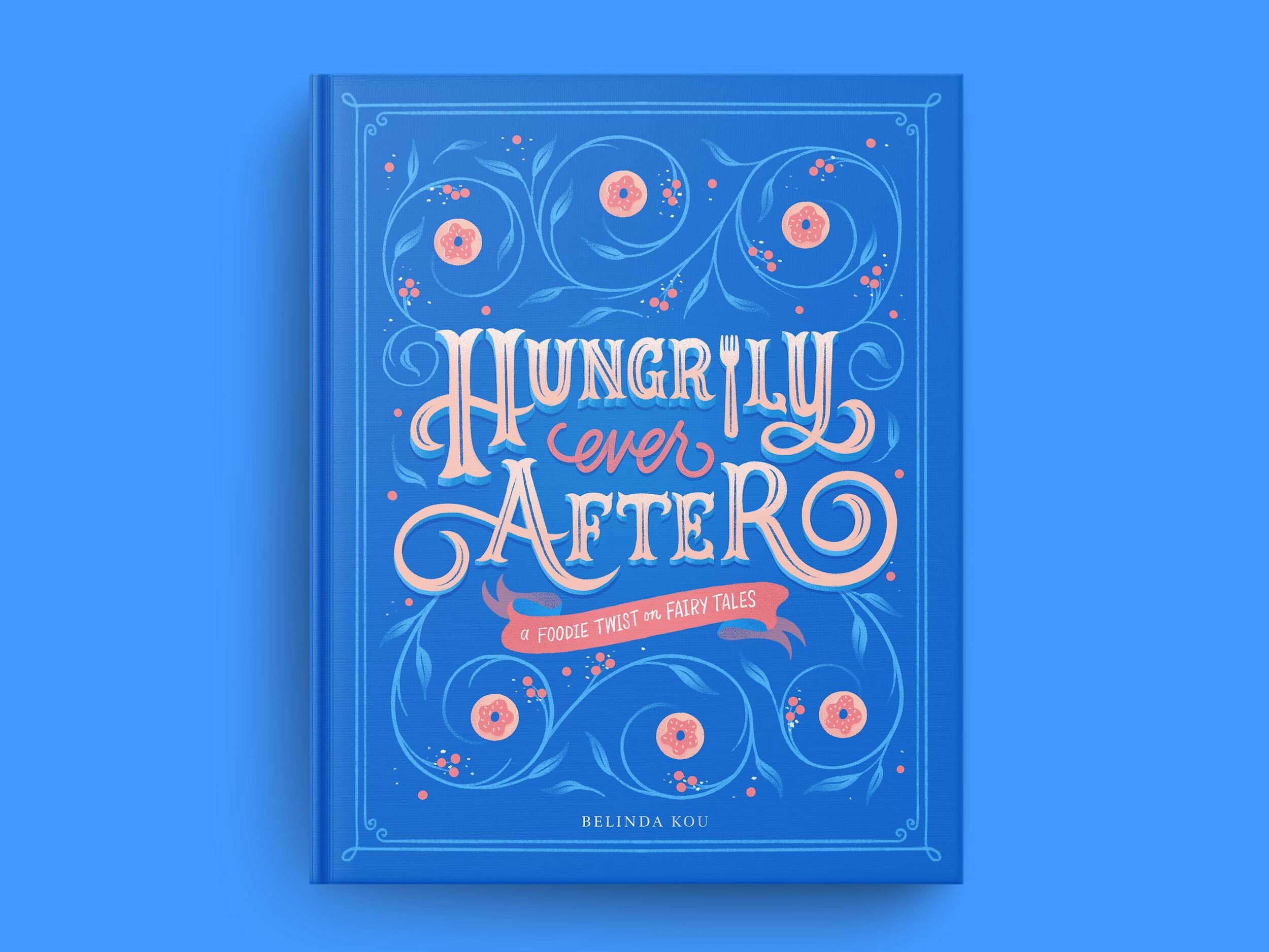
Delicious Lettering and Layouts in Procreate
In this 3-hour workshop, youβll learn how to create a dynamic food-inspired lettering piece from scratch! Gain tips to level up your lettering game, get more efficient in Procreate, and make unforgettable art packed with flavor.
IN THIS CLASS, WE WILL COVERβ¦
The digital process from sketch to final, demonstrated in real-time
Ways to combine playful lettering with illustration to spice up your layouts
2 lettering styles that will add interest and energy to your work
Strategies to help you overcome the times you get stuck in your creative process
Time-saving Procreate shortcuts and how to use them in your workflow
About the Instructor
Belinda is a Taiwanese American lettering artist, illustrator, and mom of two in Chicago. Harboring a slight obsession with noodles, she creates playful, colorful work for clients like NPR, The Washington Post, Coach, Nespresso, and Julie Andrews (most of it made in Procreate!). Sheβs had a very nonlinear career path and had to learn a lot on her own, which is why she also shares her lettering art and freelance knowledge online to help other self-taught artists pursue a path they love, too.